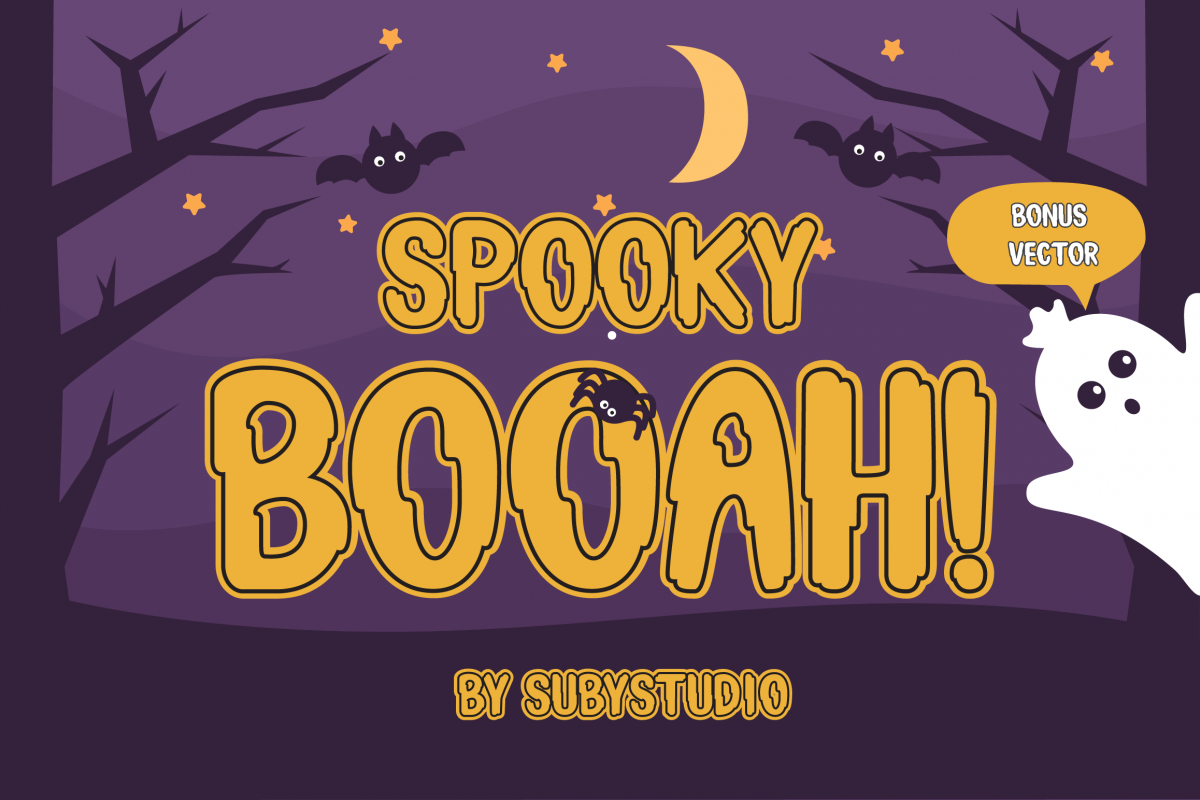
Spooky Booah! Font Display
SpookyBooah
Spooky Booah is a handmade font, spooky, and fun. It is great for any Halloween projects such as invitation cards, t-shirt, crafting, and more!
Spooky Booah Features :
• Numeric
• Symbols
• Multilingual